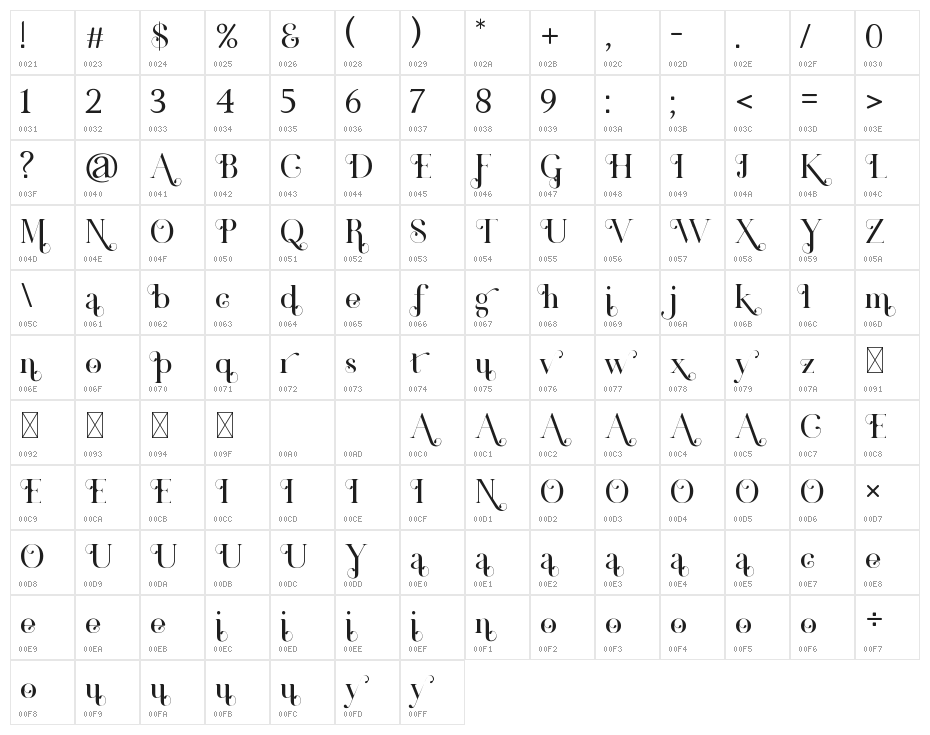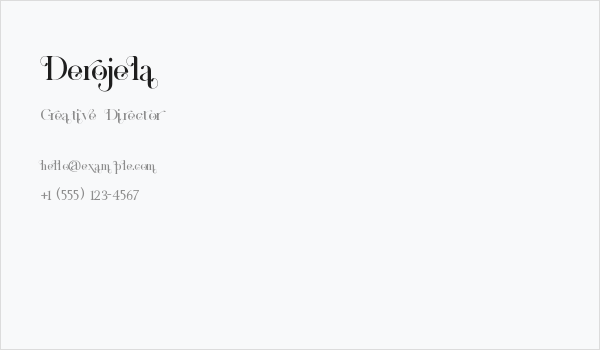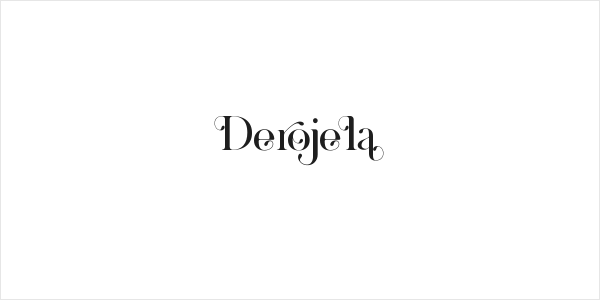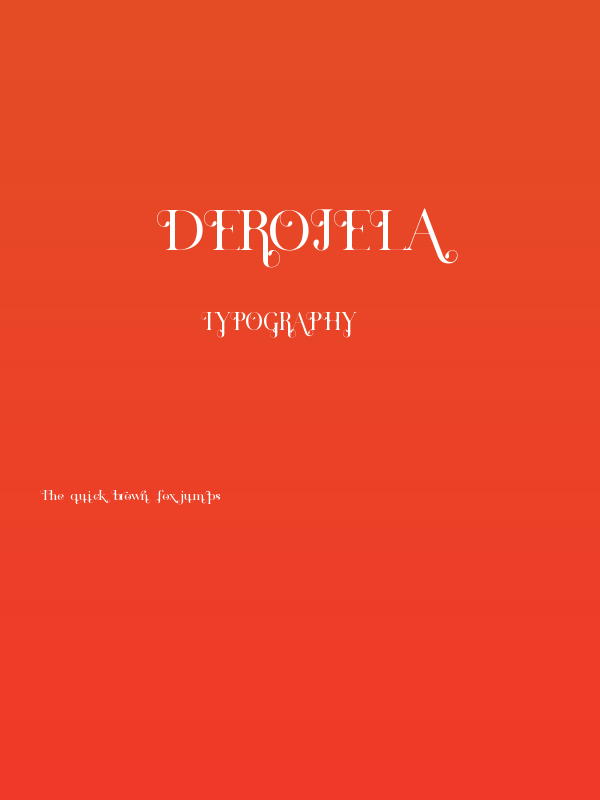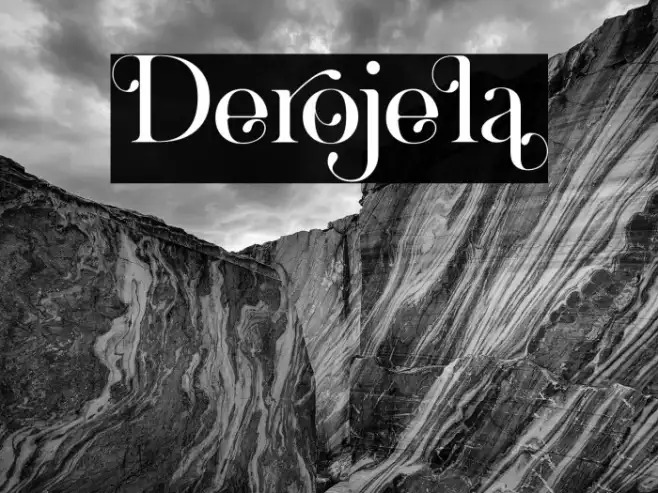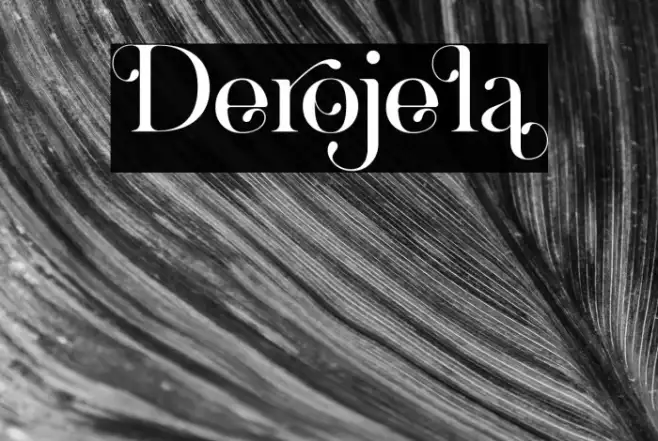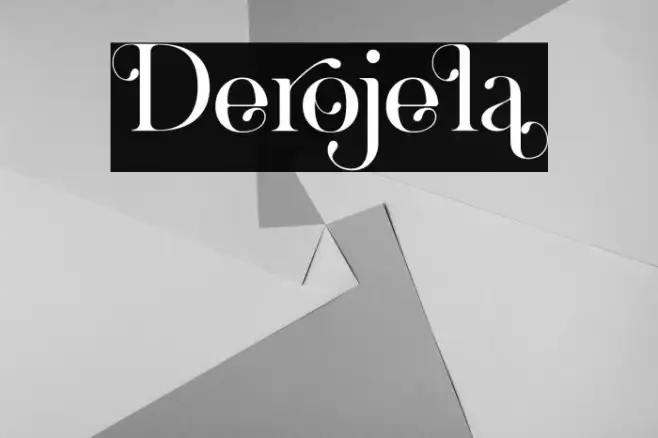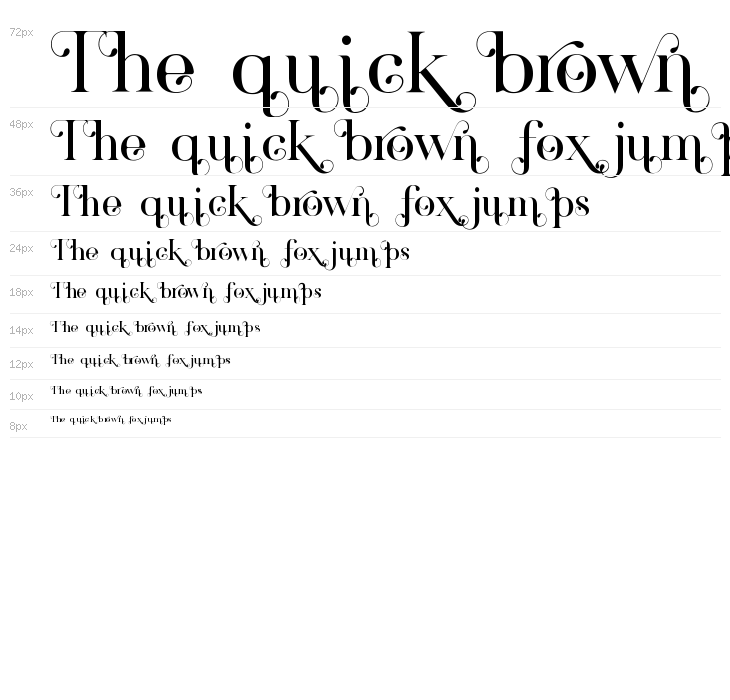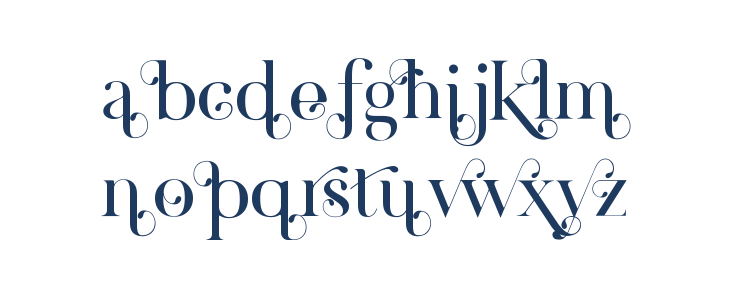
Derojela Font
Derojela Description
This font features a decorative and elegant style, characterized by its intricate swirls and flourishes that extend from the ends of the letters. The uppercase letters are particularly ornate, with each character showcasing unique embellishments that add a touch of sophistication and flair. The lowercase letters maintain a consistent style, with a slightly more subdued elegance, making them highly readable while still retaining the decorative elements. The numerals and special characters follow the same design principles, ensuring a cohesive look across all characters. This font is perfect for projects that require a touch of elegance and creativity.
| Use Case | Logos, Invitations, Posters |
| Proposed Projects | Ideal for wedding invitations, luxury branding, elegant posters, and artistic projects. |